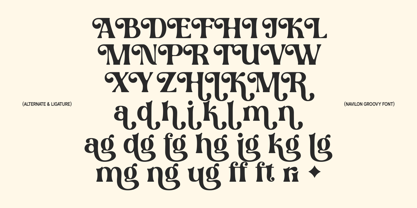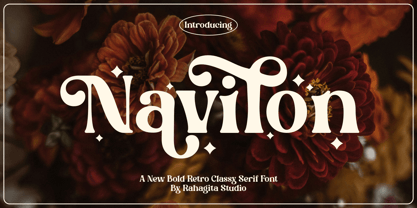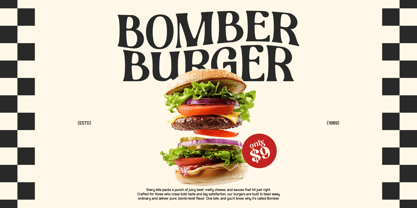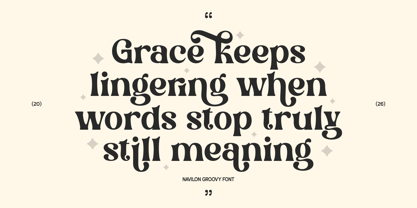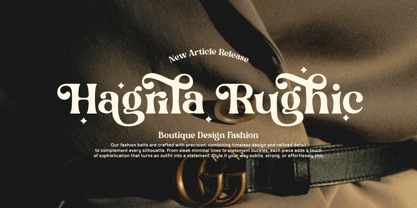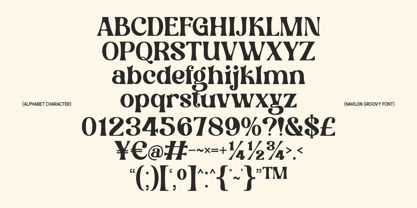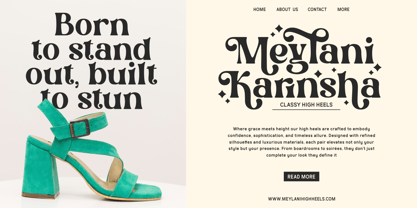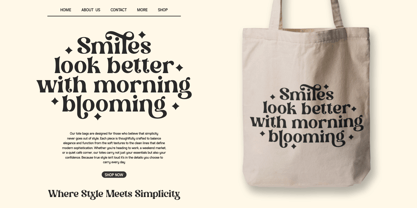
Navilon
The Navilon Font Family was designed by Setiadi Rahagita and published by RahagitaType. Navilon contains 1 styles. More about this family
Navilon Groovy Font is a bold, retro-inspired serif display typeface that combines classic elegance with a distinctive groovy personality. Whether you’re designing a boutique fashion brand, a vintage burger joint, or a high-end product label, Navilon delivers instant visual impact with its expressive letterforms and fluid curves.
Perfect for:
• Logo & branding design
• Fashion & lifestyle packaging
• Poster and banner design
• Social media headers
• Book covers & editorial layouts
• Apparel and merchandise (tote bags, shirts, stickers)
• Restaurant & food brand identity
• Wedding and event stationery